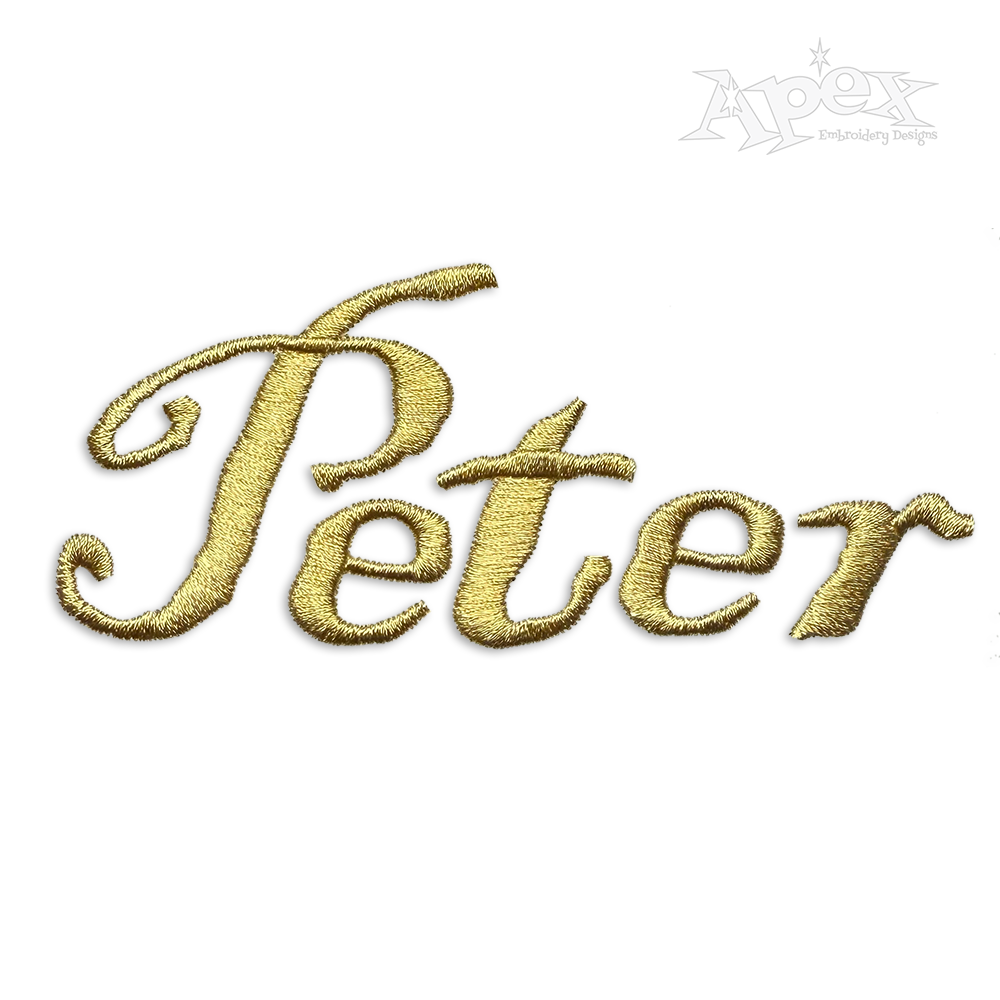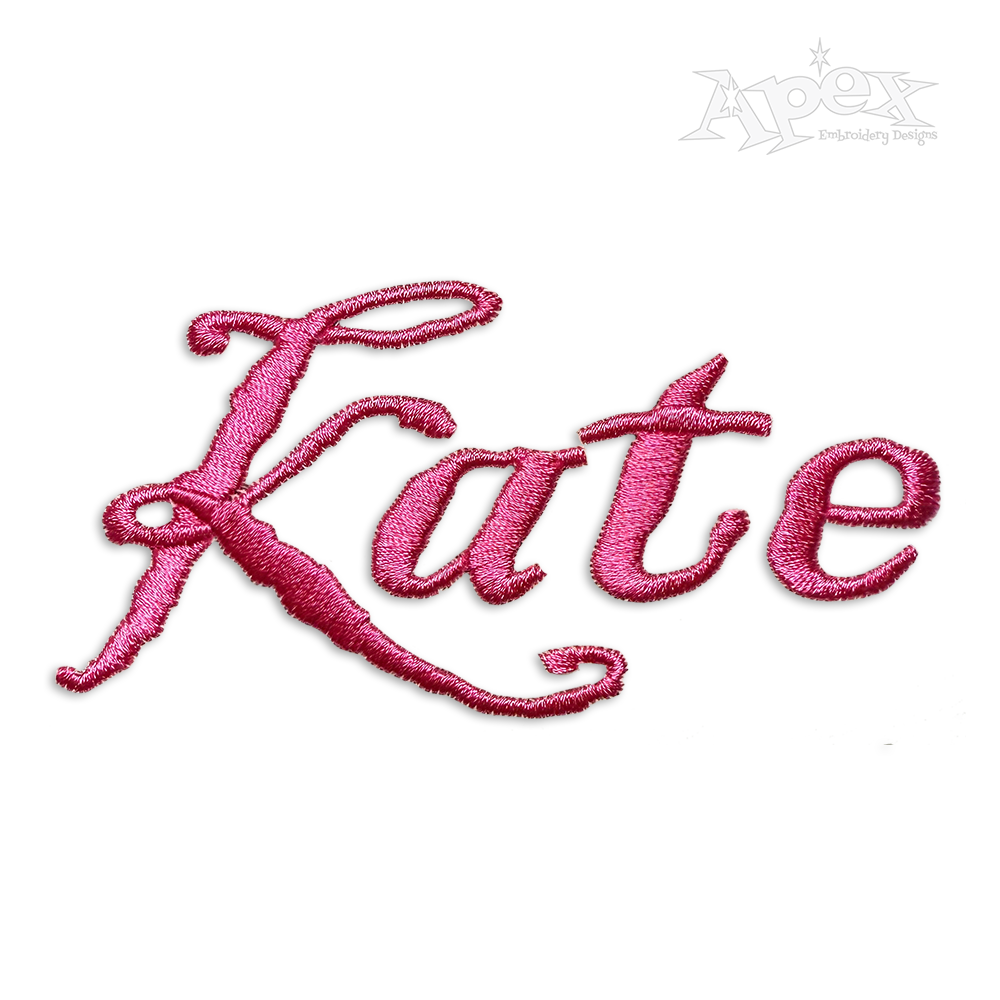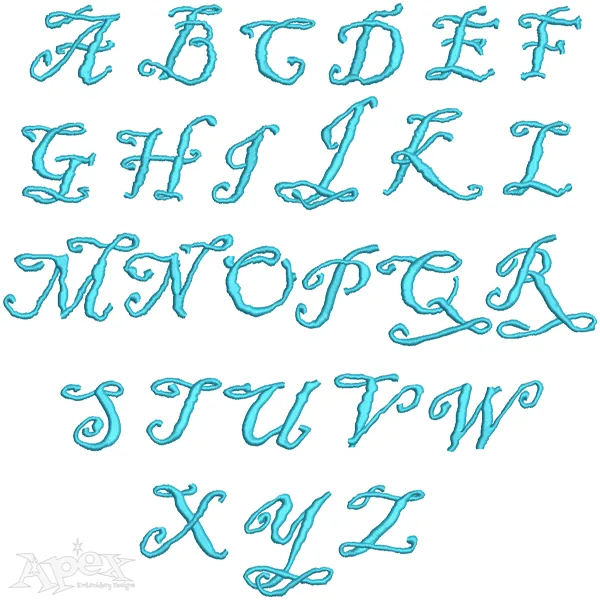
Colonial Font Embroidery
There is an enduring gravitas in the deliberate strokes of 18th-century penmanship, where every curve carries the quiet authority of history and the grand flourish of an authentic signature. Digitizing our Colonial Font was an exercise in capturing that revolutionary character—the sweeping, courageous inkwork reminiscent of John Hancock’s legendary hand—and translating it into dense, dimensional threadwork. It brings the dignified atmosphere of antique parchment and quill into the modern embroidery studio, balancing commanding capitals with fluid, graceful lowercases to bestow an unmistakable air of heirloom pedigree upon every stitch.
This masterfully digitized script collection includes four proportional sizes, purposefully scaled to accommodate diverse hoop sizes and custom monogramming applications:
- Complete Alphabet Sets: Full upper and lower case alphabets for each size tier, allowing for cohesive full-name lettering and standalone initials.
- Four Graduated Heights: Digitized across 4 distinct scales, featuring core 2-inch and 3-inch heights alongside companion sizes for refined versatility.
Project Ideas for Colonial Font Embroidery
The stately, historic cadence of this satin stitch alphabet makes it a natural centerpiece for projects that require classic sophistication and timeless sentiment:
- Heirloom Bedding & Table Linens: Stitch sweeping family initials onto crisp linen hemstitch cocktail napkins, runner borders, or Egyptian cotton pillow shams.
- Personalized Gifting: Create commemorative keepsakes such as heirloom christening blankets, milestone anniversary throws, and customized heritage book covers.
- Bespoke Resort Wear & Robes: Elevate waffle-weave spa robes, structured linen shirts, and weekend travel duffels with commanding tone-on-tone monograms.
- Bridal Trousseau Accents: Embroider the wedding date or new surname on silk bridal wraps, handkerchiefs, and ribbon ties for floral bouquets.
Because the Colonial Font features dramatic flourishes and confident letter heights, mindful placement ensures the lettering commands attention without overwhelming the textile:
- Corner Diagonal: Angle a single initial or three-letter monogram 1.5 to 2 inches from the bottom right hem of cloth dinner napkins and tea towels for quintessential heritage dining.
- Center Chest: Position full names or prominent initials 3.5 to 4 inches below the shoulder seam on loungewear, robes, or tailored shackets.
- Cuff & Sleeve Band: Use the smaller scale lower case pairings along shirt cuffs or tailored jacket hems for discreet, bespoke personalization.
- Medallion Borders: Frame the grand 3-inch capital within an architectural wreath or botanical border on decorative accent pillows and quilt blocks.
Colonial Font Craft & Letterform Details
The soul of the Colonial Font resides in its exquisite homage to the steel-nib quill. Hand-written colonial manuscripts relied on varying hand pressure to create dramatic contrasts between hairline upstrokes and deep, ink-rich downstrokes. In digitizing this alphabet, we honored that optical tension by designing nuanced satin stitch paths that gracefully expand and contract along the curves.
Every serif and ornamental flourish is reinforced with calculated directional underlay, preventing stitch sinkage on textured cottons and maintaining clean, crisp edges on slippery silks. The transition angles across each lowercase loop have been manually turned to ensure high light reflectivity, granting the finished embroidery a liquid-like sheen that mirrors fresh ink dried upon fine vellum.